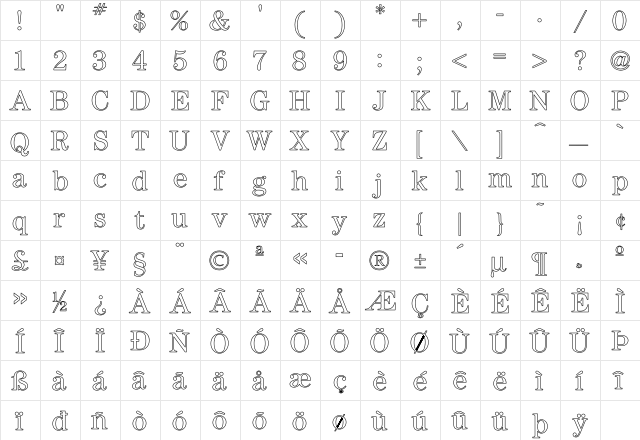
Centurion Ho Regular
Design Context for Centurion Ho Typeface
Centurion Ho takes a measured approach to typography — its balanced proportions and neutral character make it a reliable workhorse for both digital and print work.